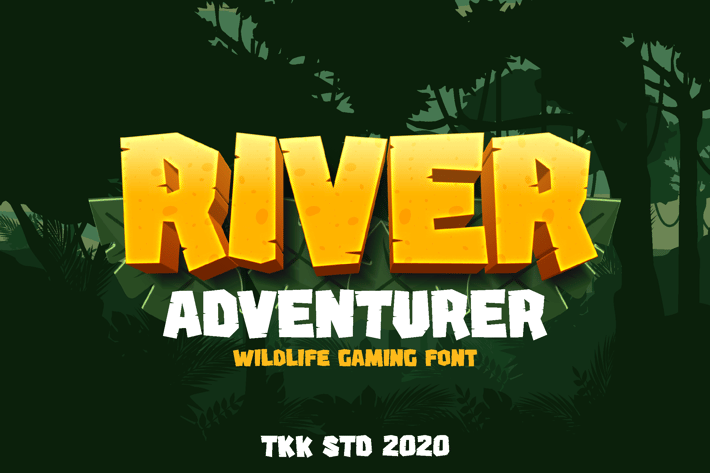
River Adventurer - Block Gaming Font
River Adventurer - Wildlife Gaming Font
River Adventurer is a chunky, jungle-themed display font with playful geometry, rounded edges, and a high-energy tone. Its exaggerated proportions and strong curves evoke the charm of video games, tropical quests, and animated fun. The style is lively and friendly, designed to pop in kids’ content and adventure-themed branding. Its strong letterform rhythm and organic block structure make it both eye-catching and easy to read, ideal for designs that need to roar with energy.
Key Features
Designed for Fun, Built to Perform:
- Bold and blocky display structure for strong visual presence
- Rounded forms and quirky proportions create a joyful, adventurous tone
- Jungle and wildlife inspiration adds thematic harmony
Perfect for Kid-Friendly & Nature-Driven Projects:
- Great for gaming headlines, educational print, jungle-themed posters
- Ideal for YouTube thumbnails, comic intros, environmental apps, and toy packaging
- Maintains legibility while adding flair and emotion